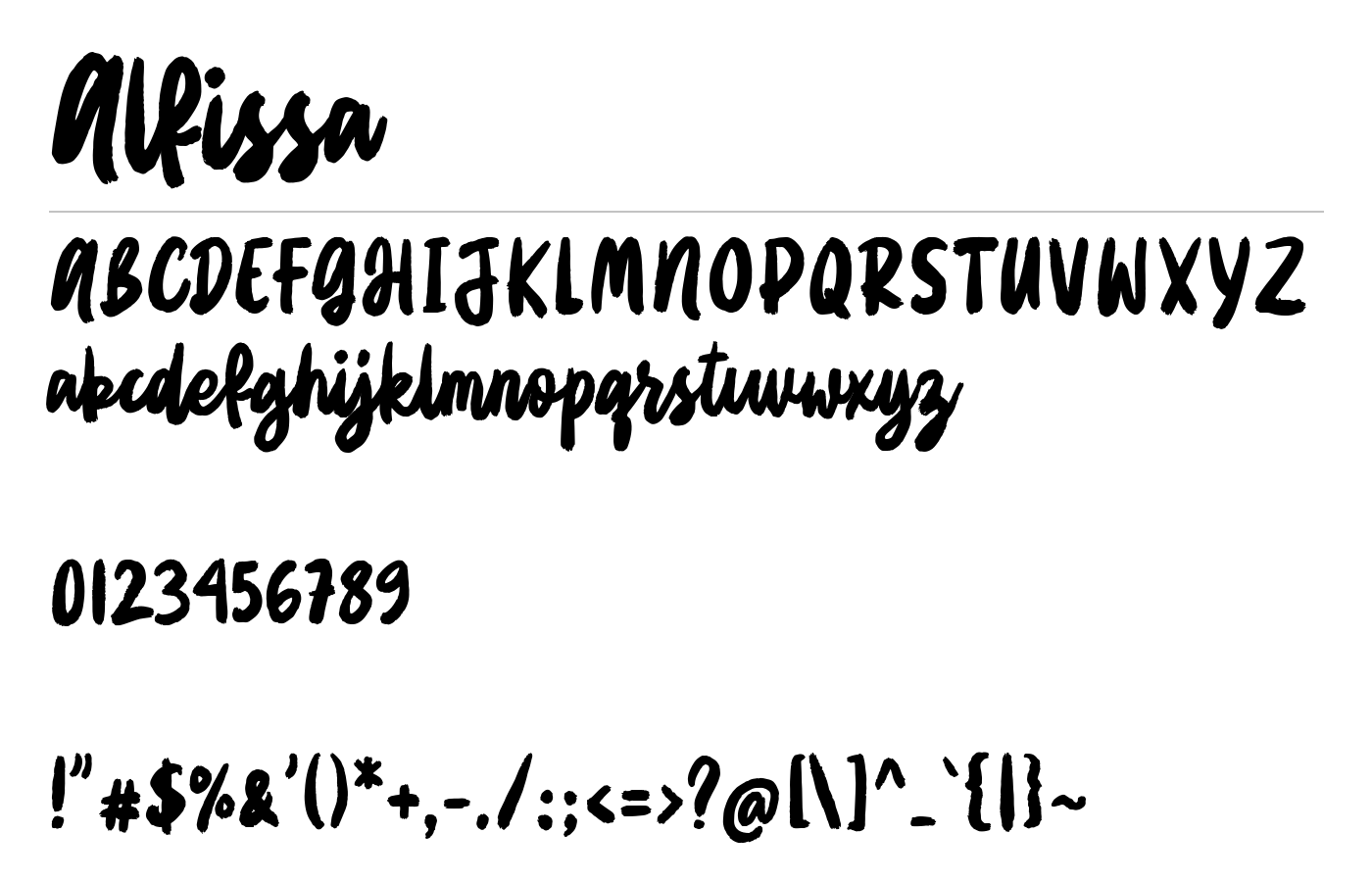
Alfissa is a bold, handwritten script font with a casual, brush-painted look that combines thick, uneven strokes with lively, organic shapes. Its playful yet strong character makes it ideal for branding, headlines, and creative projects seeking a personal, artistic touch. This font works well where a warm, approachable style is desired, adding a sense of creativity and individuality.
Alfissa Font
About Alfissa Font
| Font family | Alfissa Font |
| Designer | Wahyu Andi |